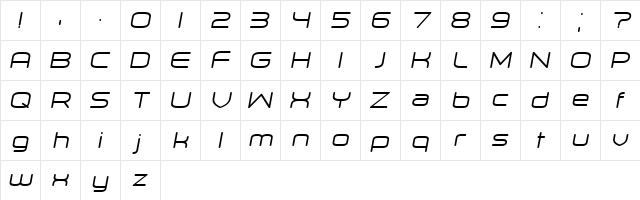
Orenburg Italic
Design Context for Orenburg Typeface
Orenburg takes a measured approach to typography — its balanced proportions and neutral character make it a reliable workhorse for both digital and print work. Its italic angle brings a sense of urgency and motion to the letterforms.
Pro Tip: Use Orenburg for emphasis, pull quotes, and subheadings where its slanted energy can add rhythm to the layout.